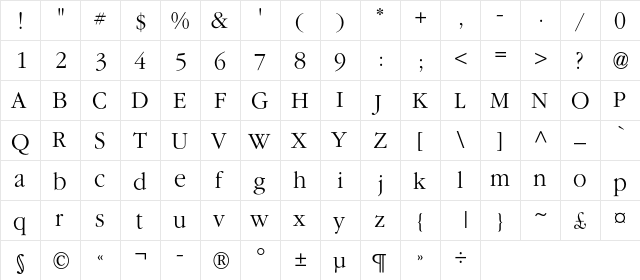
AGSaturdayC Regular
Design Context for AGSaturdayC Typeface
AGSaturdayC is a composed and adaptable typeface that performs quietly and consistently across a wide range of design contexts.
Pro Tip: Use AGSaturdayC in both headline and body roles to test its range before committing to a single application.